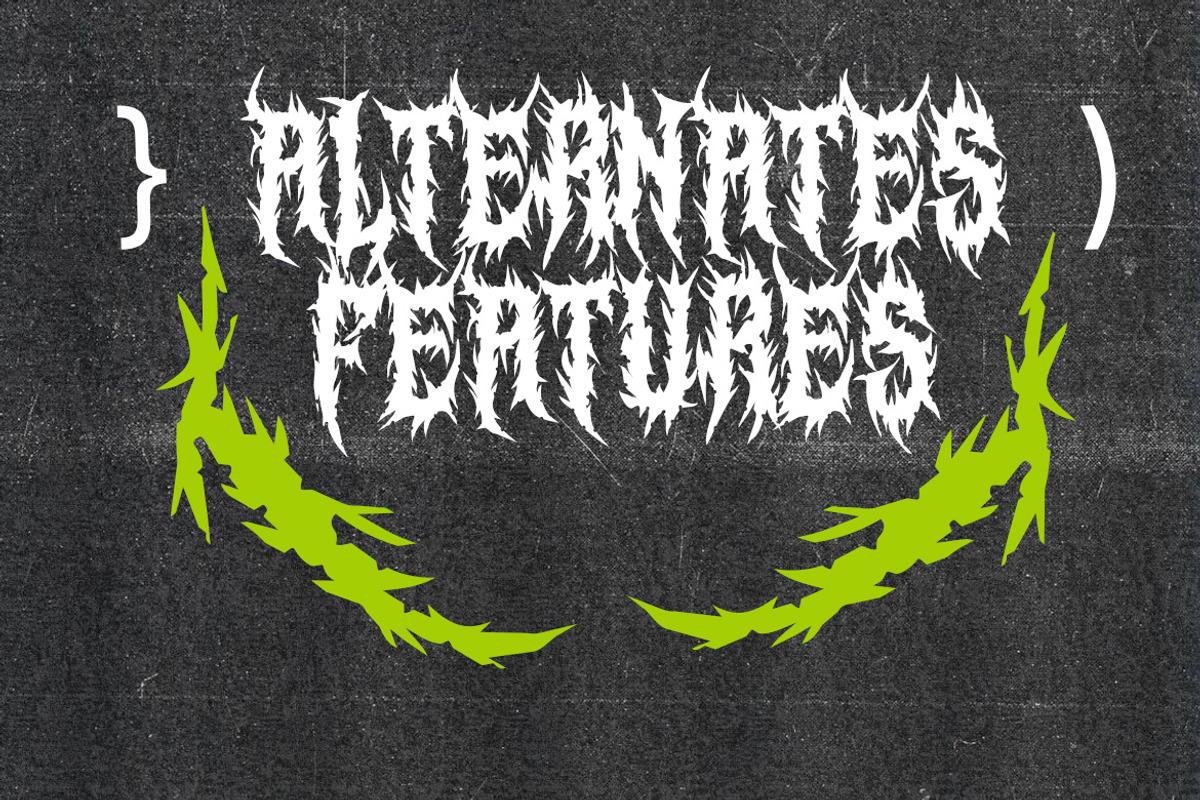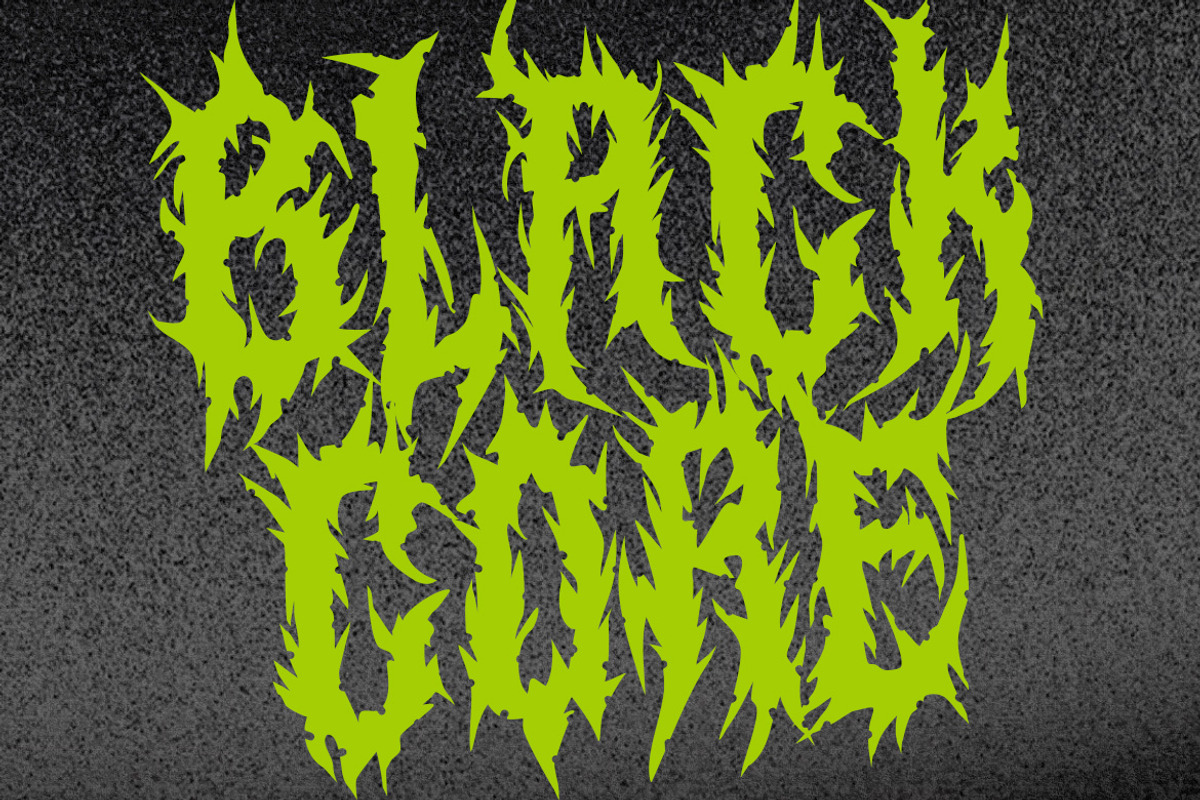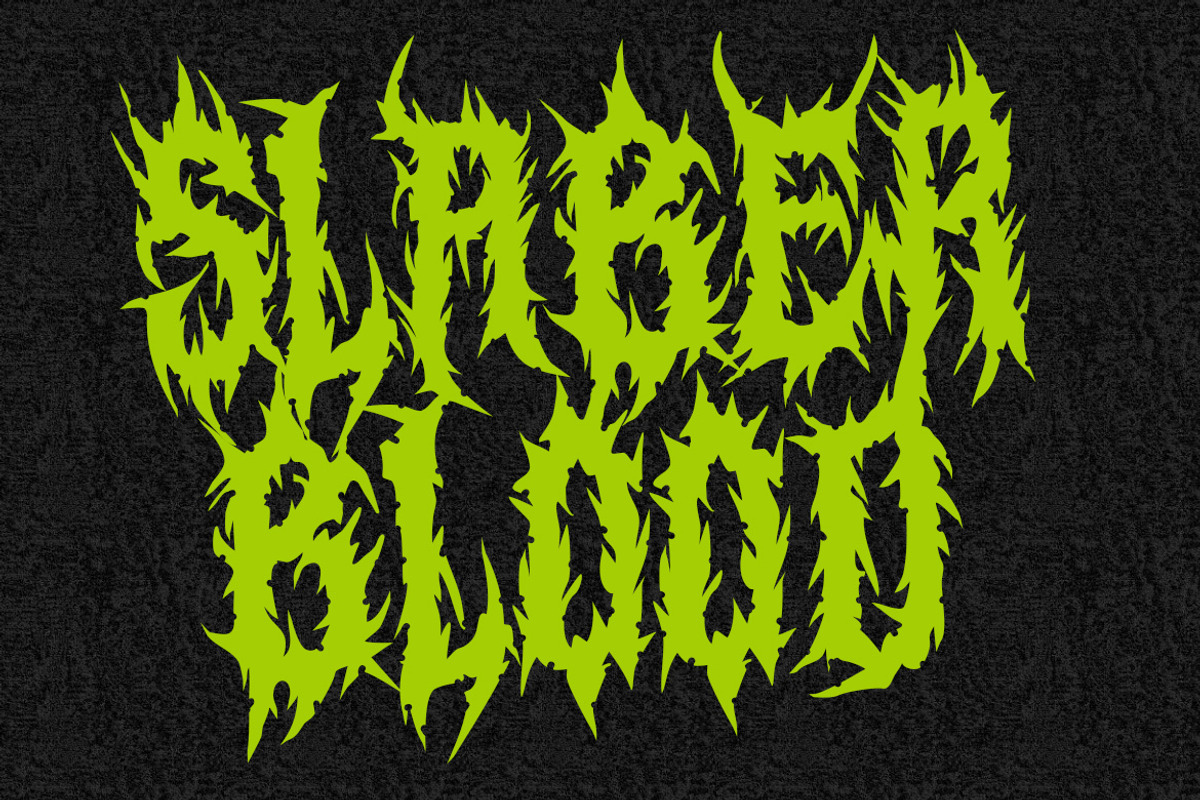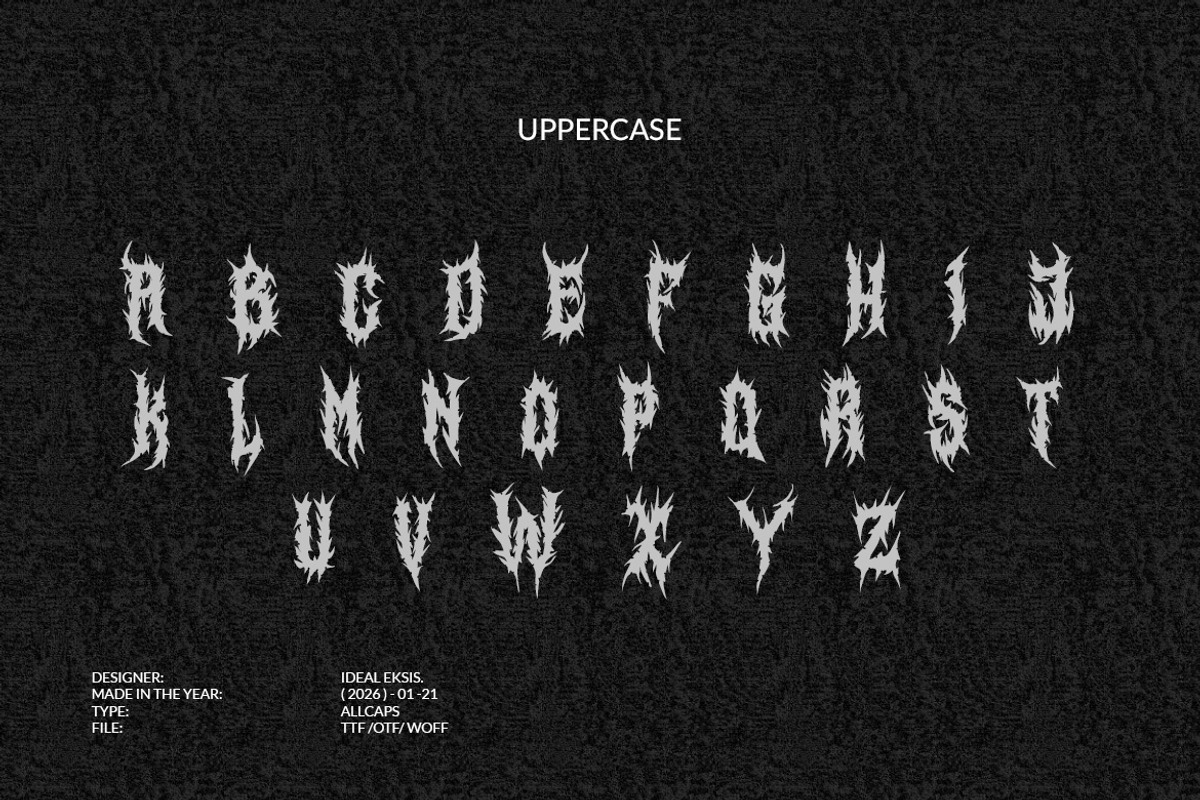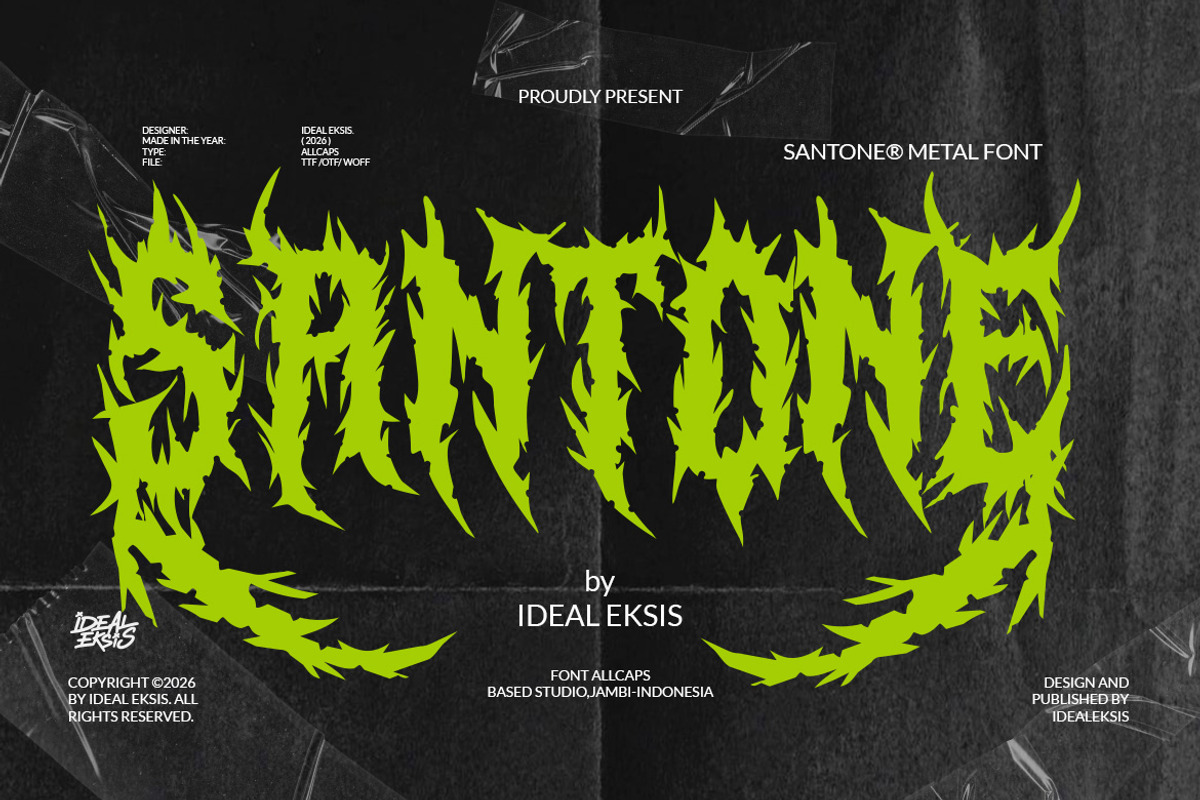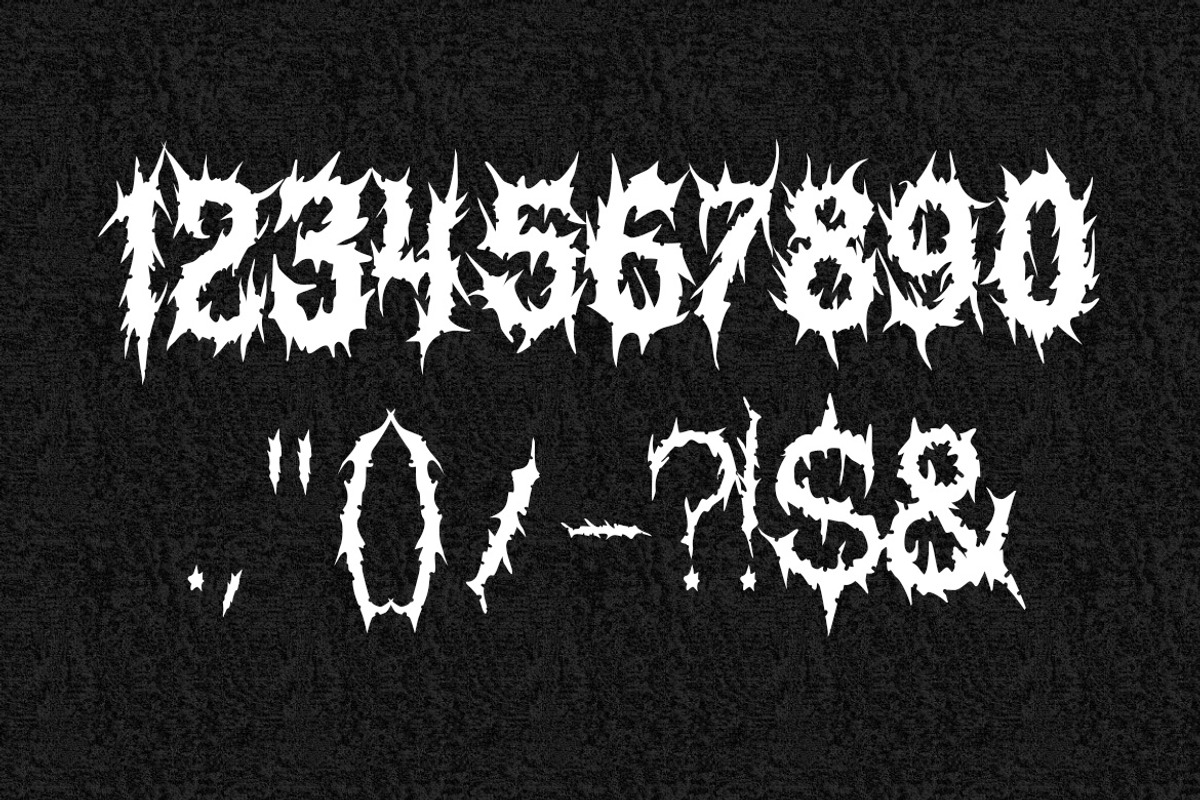
Santone - Metal Font
Santone Metal Font features an extremely aggressive and jagged aesthetic, characteristic of the death metal and black metal subcultures. The letterforms are composed of thick, irregular strokes adorned with sharp, thorn-like protrusions that create a chaotic and menacing silhouette. Each character is meticulously crafted to evoke a sense of raw energy and darkness, with interlocking elements that give the typography a cohesive, organic, yet dangerous feel. This display typeface is ideal for high-impact visual projects such as band logos, concert posters, and horror-themed branding where a visceral and intimidating presence is required.
Uppercase (ALLCAPS)